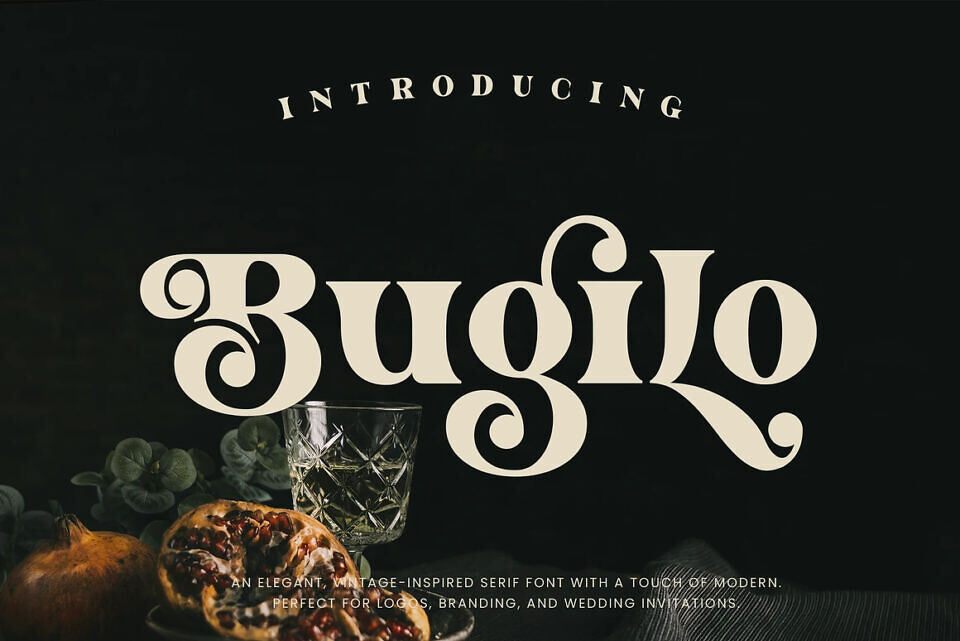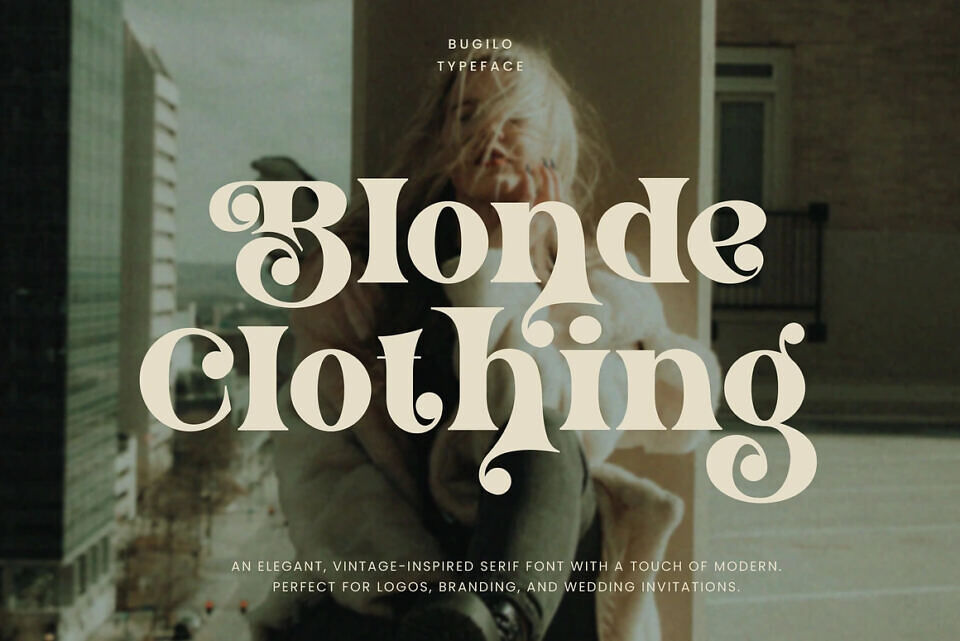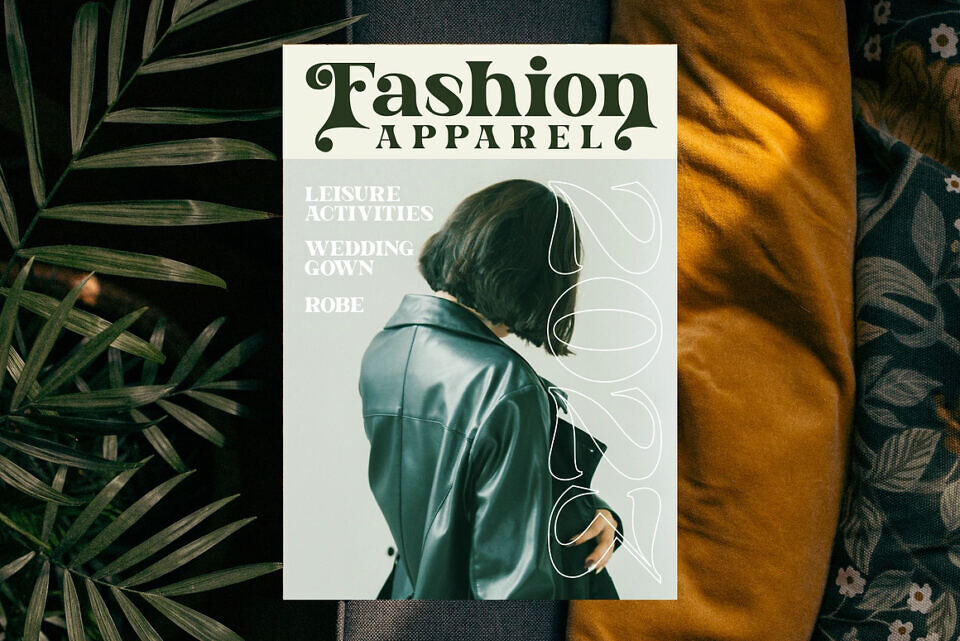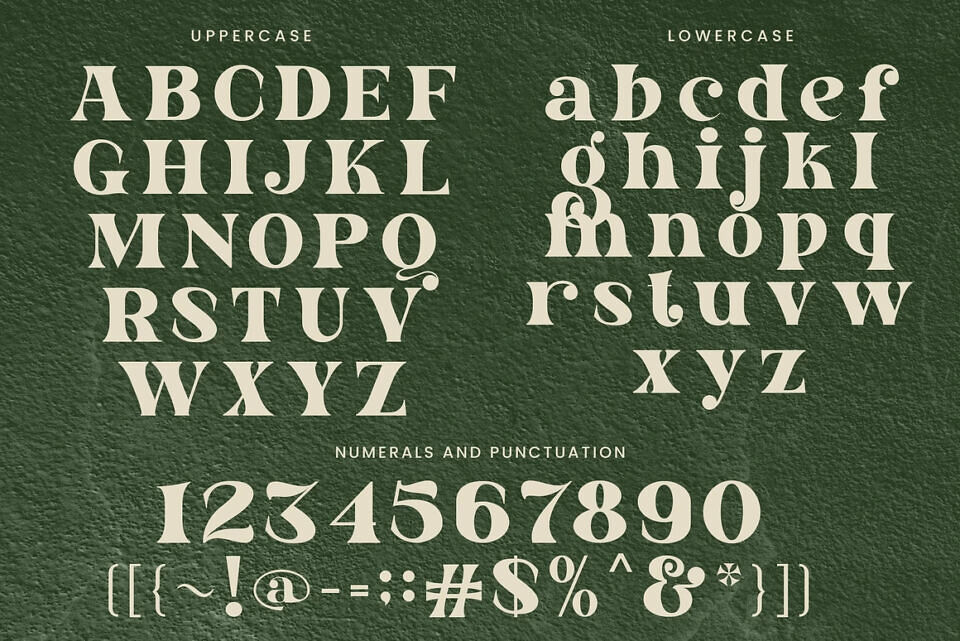
Bugilo Font
Bugilo feels playfully nostalgic and delivers an incredible vintage aesthetic. Use this serif font to add that special retro touch to any design idea you can think of!
Bugilo Comes with alternatives, helps to create stunning logos, quotes, posts, blog posts, branding projects, magazine imagery, wedding invitations, and much more. Masterfully designed to become a true favorite, this font has the potential to bring each of your creative ideas to the highest level!